Most resume advice tells you to “avoid Times New Roman and Calibri” without saying what to use instead. The fonts below are all free, all pass through applicant tracking systems cleanly (no exotic ligatures or unusual character shapes that confuse parsers), and each has a distinct personality so your resume doesn’t look like everyone else’s template. If you’ve been searching for free fonts for resume, these picks are curated with exactly that in mind.
We picked these ten on three criteria: how cleanly they parse through an Applicant Tracking System (no stylistic ligatures or unusual glyph shapes that confuse a resume scanner), how legible they stay at 10-11pt when a resume needs to fit on one page, and whether the license actually allows commercial use — not just personal projects. All ten are hosted on Google Fonts under the SIL Open Font License, so there’s no ambiguity about using one on a document you send to an employer.
Quick Comparison
| Font | Style | Best For |
|---|---|---|
| Lato | Sans-serif | A safe, broad default for any industry |
| Source Sans Pro | Sans-serif | Roles where you want zero attention on the font |
| Merriweather | Serif | Traditional or formal resumes |
| Roboto | Sans-serif | Neutral, universally safe choice |
| Karla | Sans-serif | An alternative to overused Calibri |
| PT Serif | Finance, law, or academic resumes |
| Work Sans | Sans-serif | Resumes read mostly on-screen |
| Raleway | Sans-serif | Creative or design-adjacent roles |
| IBM Plex Sans | Sans-serif | Engineering and product resumes |
| Noto Sans | Sans-serif | Maximum rendering compatibility |
Lato
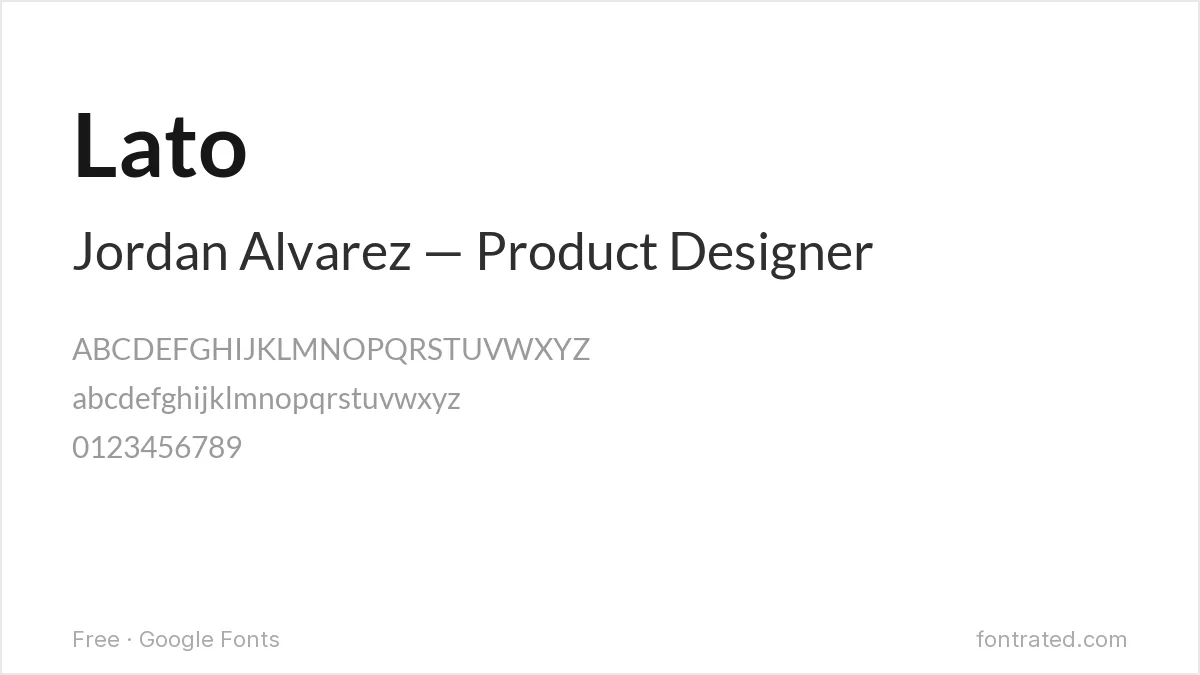
Designed by Łukasz Dziedzic, Lato has semi-rounded letter terminals that read as warm without tipping into casual. Its tall x-height keeps body text legible even at 10pt, which matters when you’re trying to fit a career onto one page.
Source Sans Pro
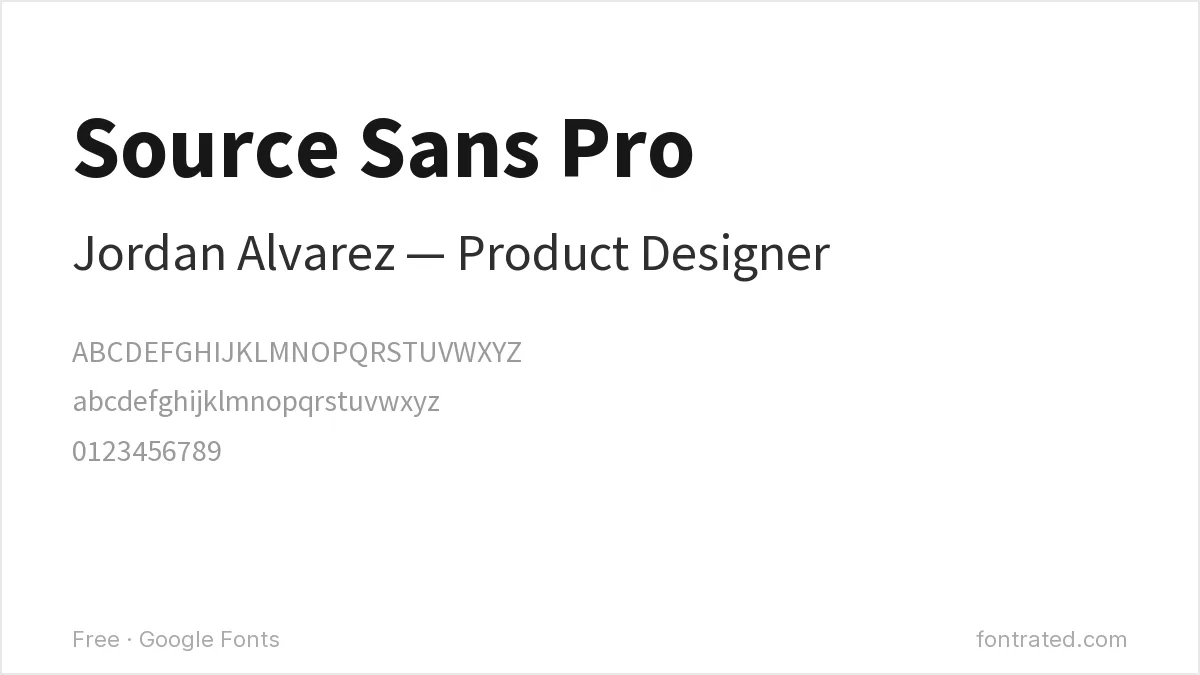
Adobe’s first open-source typeface was built for UI text, which means it was engineered to disappear and let the content lead. Use it when you want the hiring manager focused on your experience, not your font choice.
Merriweather
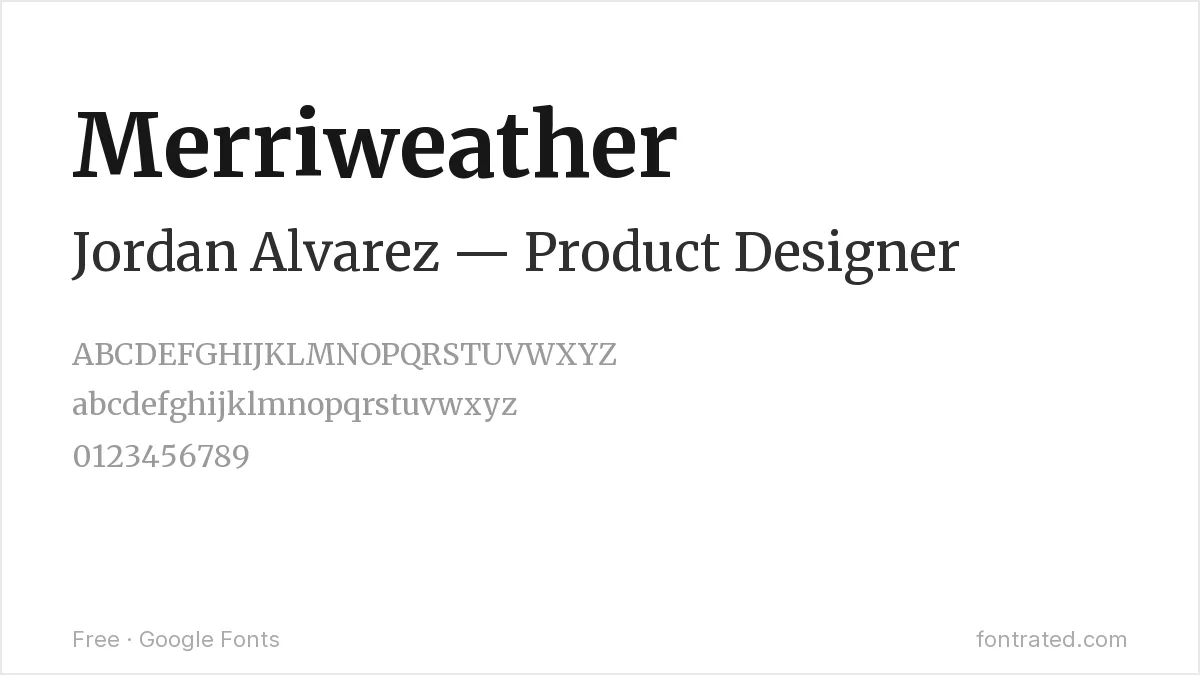
A serif designed specifically for screen reading rather than print, with sturdy strokes that hold up at small sizes. It gives a resume a touch more gravitas than a sans-serif without the stiffness of Times New Roman.
Roboto
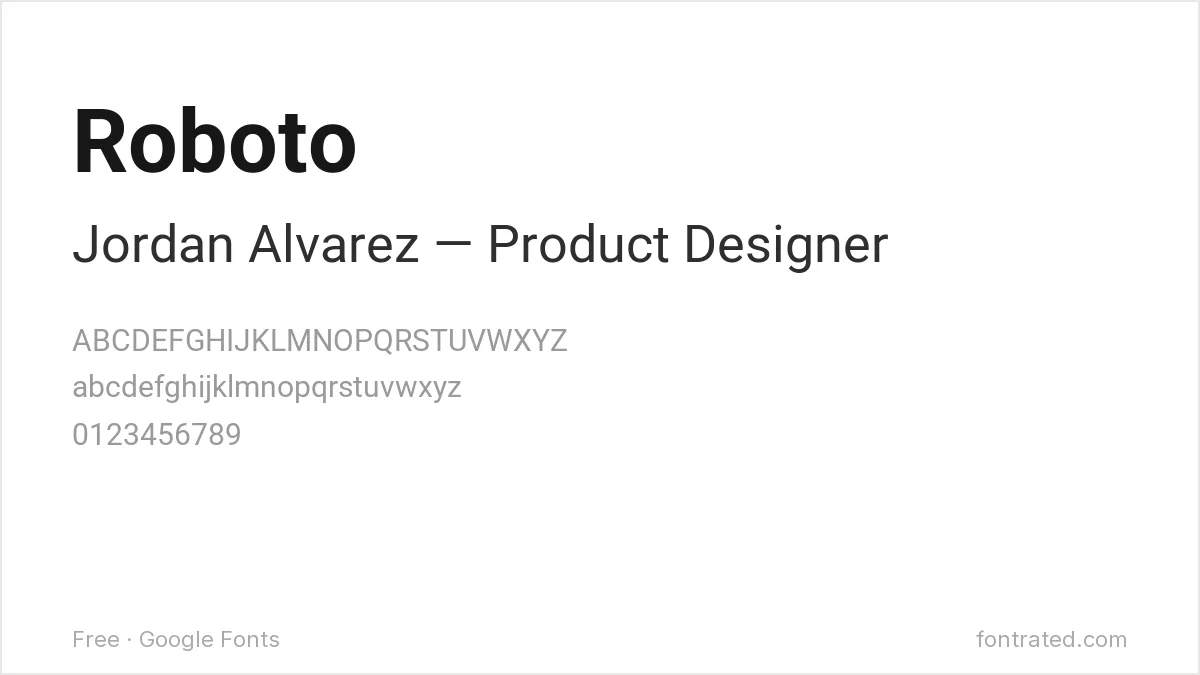
Google’s own system font has a mechanical skeleton softened with friendly curves at the terminals. It’s an extremely safe, neutral choice — the typographic equivalent of a well-tailored blazer.
Karla
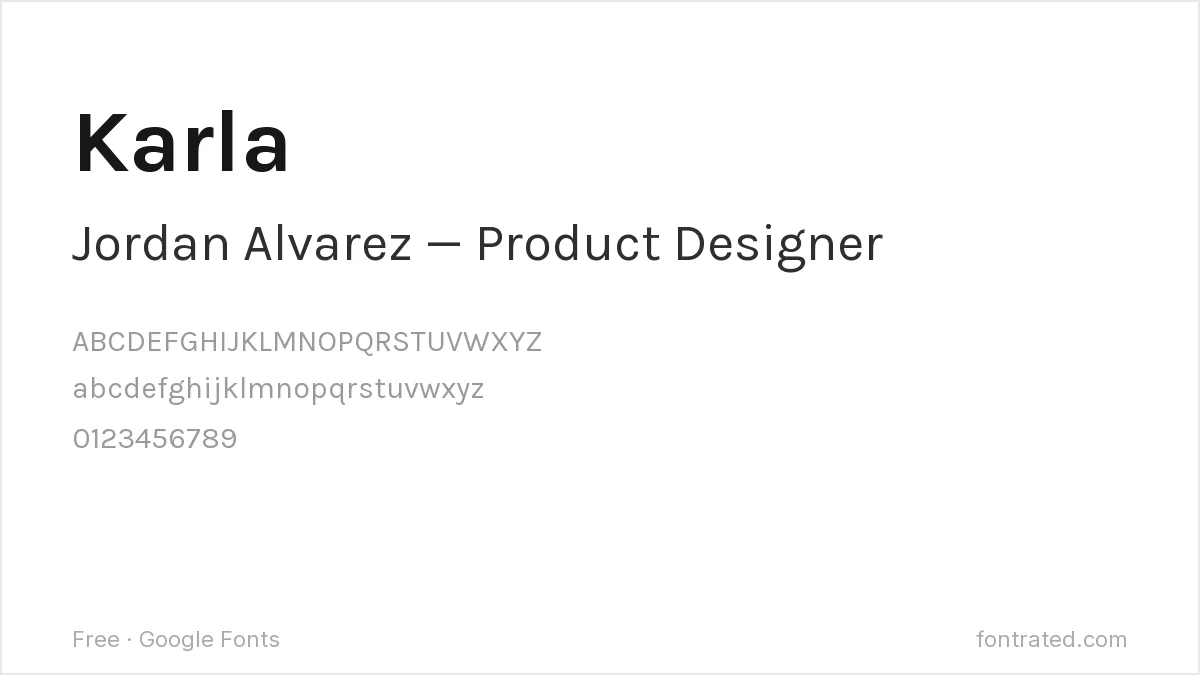
A grotesque sans with slightly rounded corners that keeps it from feeling cold. Karla is a good escape hatch if you’re tired of seeing Calibri on every other resume in the pile.
PT Serif
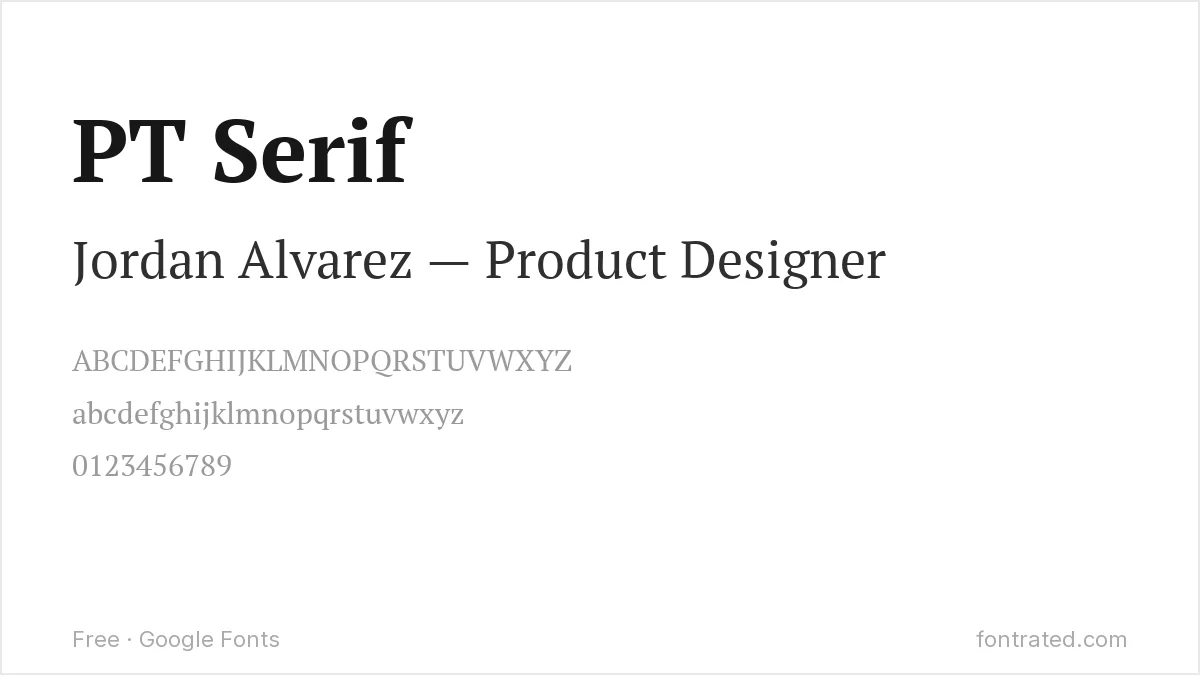
Built with humanist proportions and generous counters, PT Serif reads as traditional and trustworthy — a solid pick for finance, law, or academic resumes where a serif signals seriousness.
Work Sans
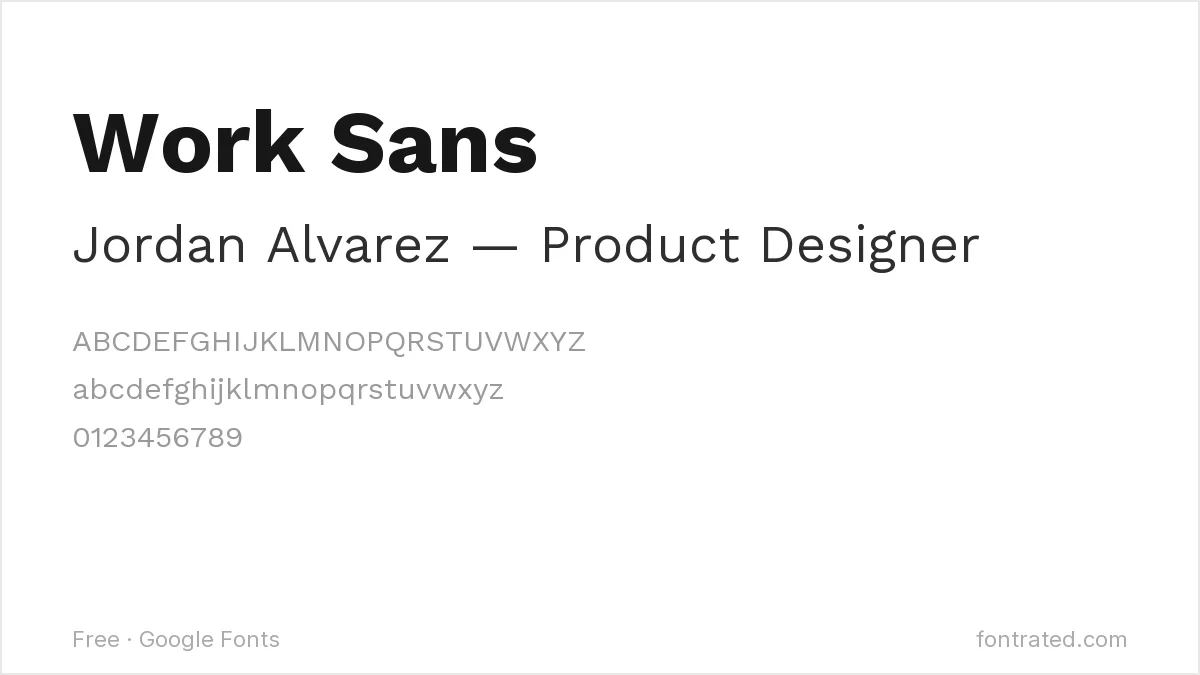
Optimized specifically for on-screen text at medium sizes, drawing on early 20th-century grotesques like Neue Haas Grotesk. It has enough character to feel considered without calling attention to itself.
Raleway
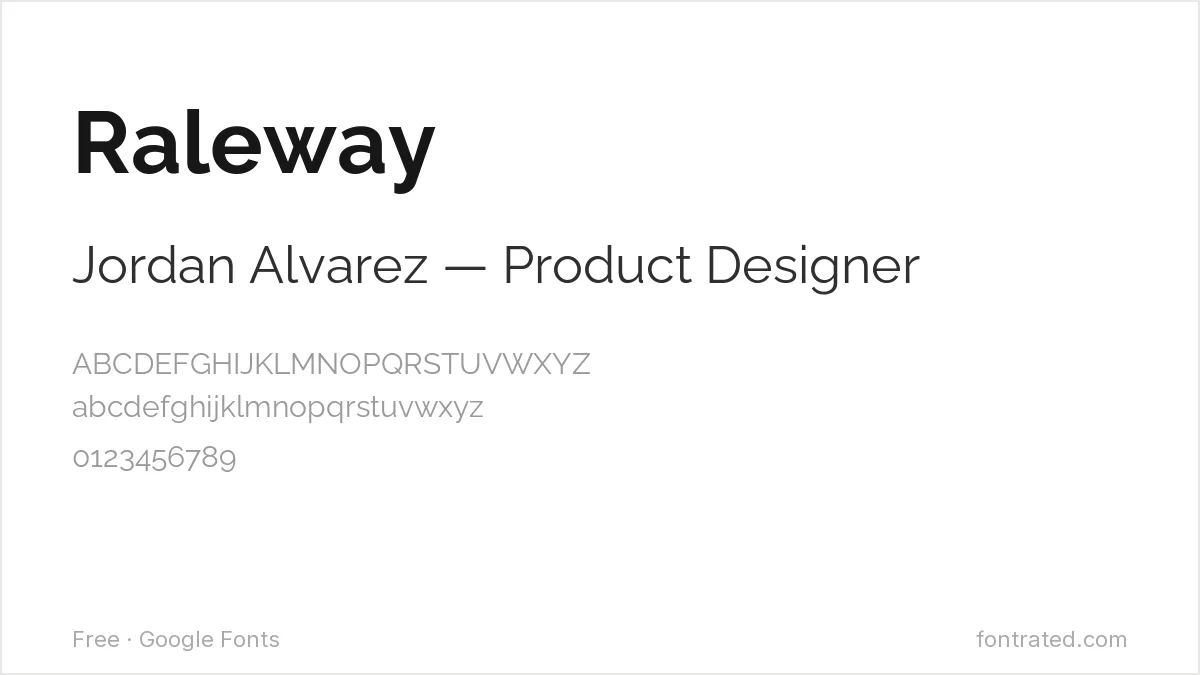
Originally released as a single thin weight before growing into a full family, Raleway keeps a distinctive single-story “w” and elegant proportions. Best for creative or design-adjacent roles where a resume can show a little personality in the header.
IBM Plex Sans
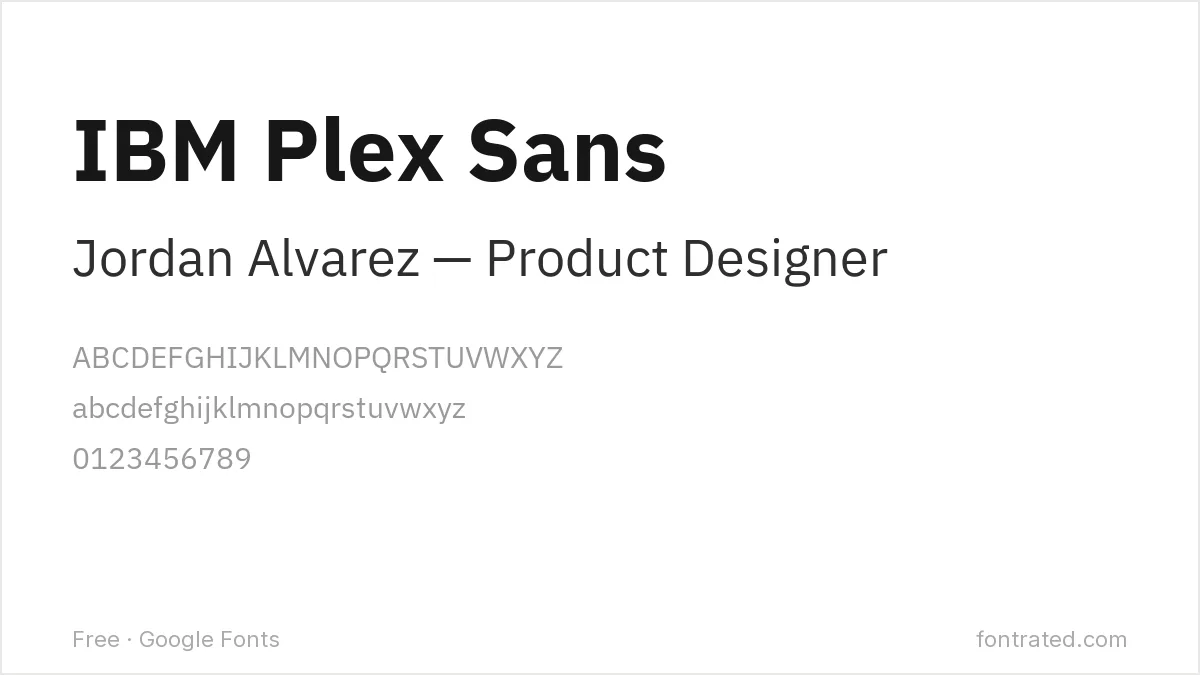
Designed in-house at IBM with flat-cut terminals and subtle technical quirks, Plex Sans reads as precise and current. A strong choice for engineering and product resumes.
Noto Sans
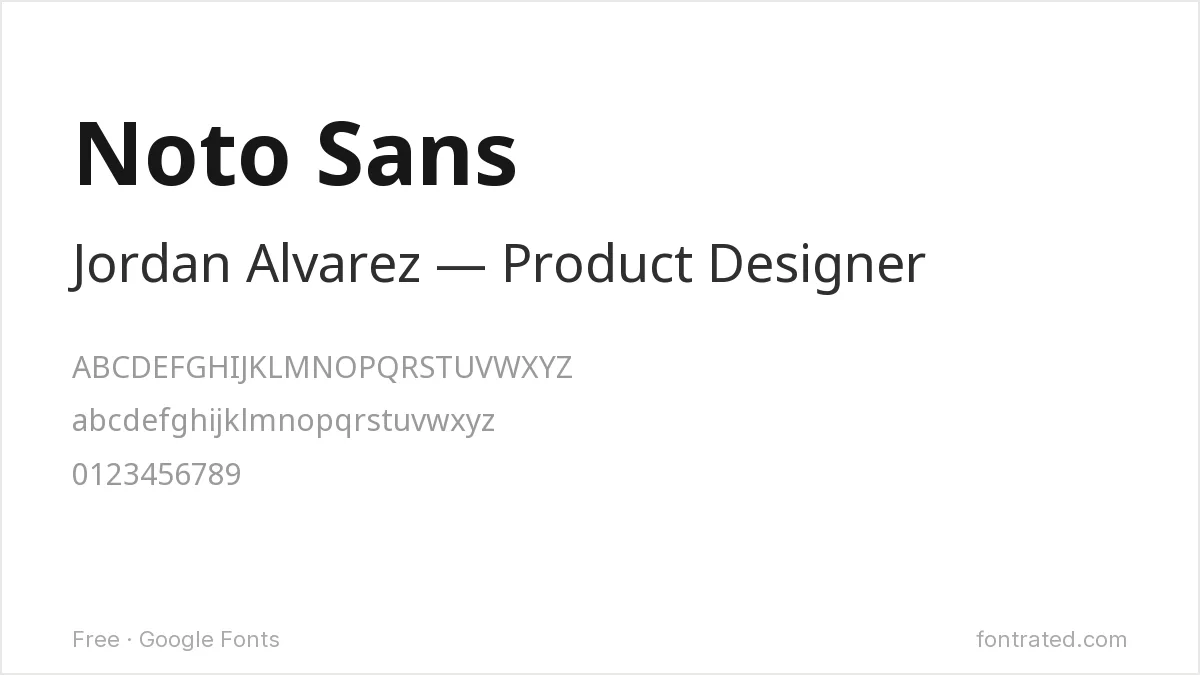
Part of Google’s project to support every written language without “tofu” (missing character boxes), Noto Sans is plain by design — genuinely the safest possible choice if you just want zero risk of rendering issues across any system that opens your PDF.
Which one should you actually pick? If you’re unsure, Lato or Source Sans Pro cover the widest range of industries. Save the more distinctive choices (Raleway, PT Serif) for roles where a little visual personality works in your favor.